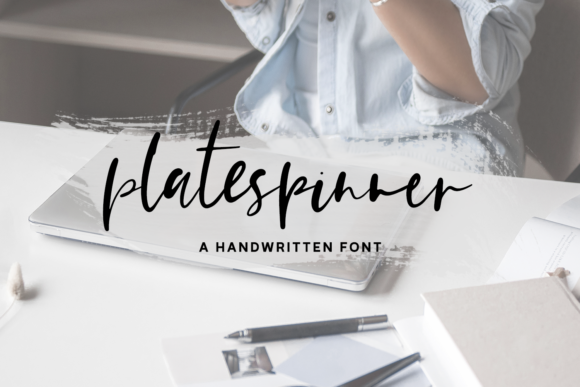
Immerse yourself in the world of Platespinner Script, a font meticulously crafted to capture the essence of timeless elegance and modern sophistication. With its graceful curves, flowing strokes, and a touch of playful charm, this script font is an invitation to express your creativity and make a lasting impression.
Step into the realm of Platespinner Script, where every letter is a work of art, a stroke of genius that harmonizes to form a masterpiece. Its delicate yet bold presence commands attention, gracefully adorning your designs with a touch of understated luxury.
Unleash your imagination and let Platespinner Script dance across your wedding invitations, adding a touch of ethereal beauty to the most special day of your life. Its elegant curves and romantic undertones will create an enchanting atmosphere, leaving your guests spellbound.
Beyond weddings, Platespinner Script lends its charm to a myriad of creative endeavors. Whether you're designing logos, branding, or social media posts, this font has the versatility to elevate your projects with a timeless appeal. Its effortless style seamlessly blends with any design aesthetic, adding a touch of sophistication without overpowering the message.
With Platespinner Script, your designs will radiate a sense of grace and refinement, captivating your audience and leaving a lasting impression. It's not just a font; it's an experience, an expression of your unique style and personality.